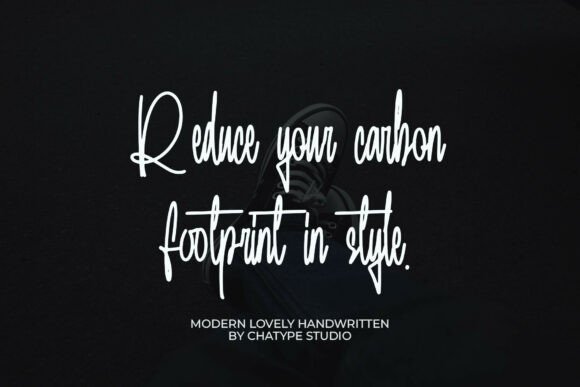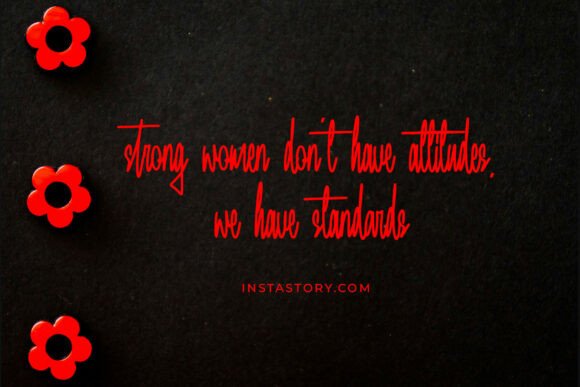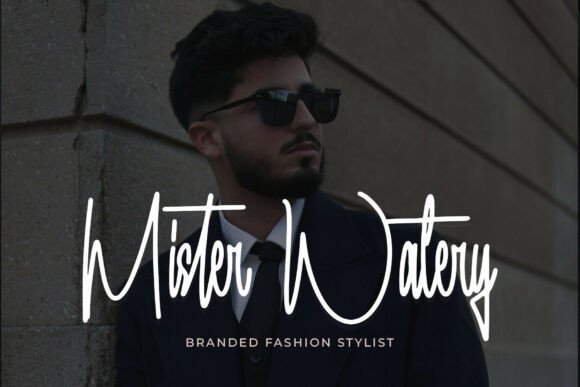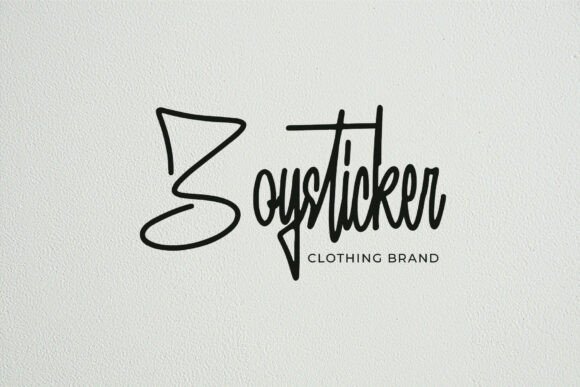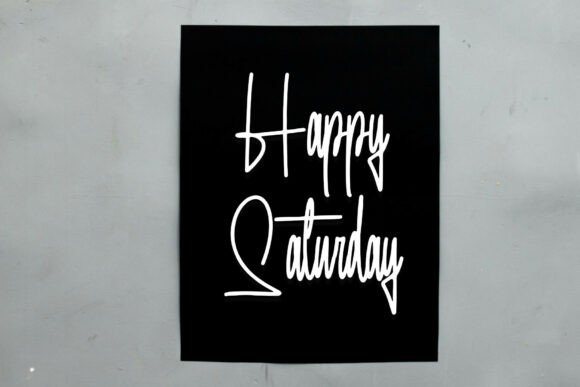
Introduction to Fusterkey Font
Fusterkey is a light and breezy handwritten font that brings a touch of casual charm to your designs.
With its fluid strokes and contemporary feel, itโs perfect for branding, travel blogs, social media posts, and lifestyle content Fusterkey captures the essence of relaxed elegance and creative spontaneity.
Key Features of Fusterkey Font
Why Choose Fusterkey Font?
Fusterkey Font offers exceptional quality and versatility, making it a valuable addition to your design toolkit. Whether you’re creating for personal projects or commercial use, Fusterkey Font delivers professional results.